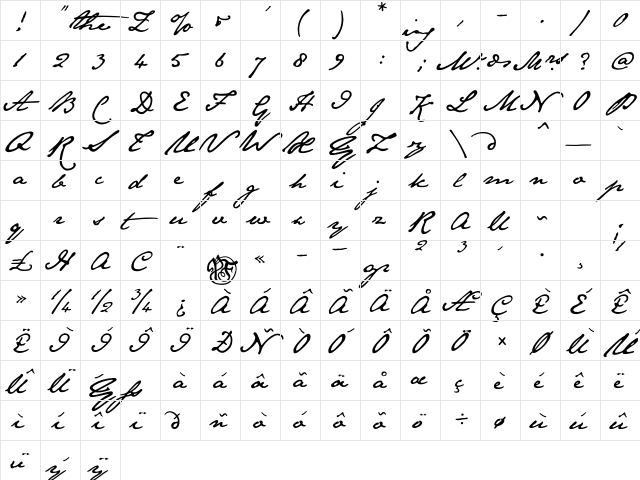
JaneAusten NoSecret Font Preview
JaneAusten NoSecret
| Designer | Pia Frauss |
Design Context for JaneAusten Typeface
JaneAusten is a composed and adaptable typeface that performs quietly and consistently across a wide range of design contexts.